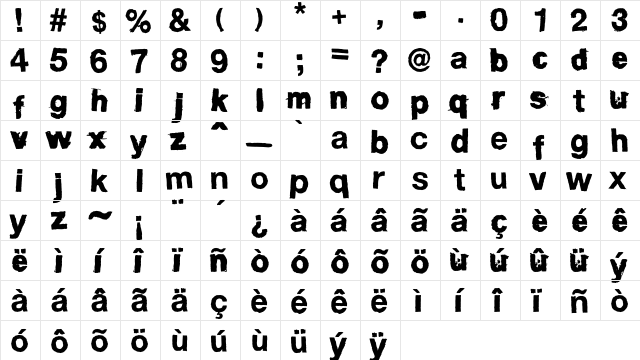
FD Helwoodica Regular
Design Context for FD Helwoodica Typeface
FD Helwoodica echoes the hand-painted signage and woodblock typography of the American frontier, with a warm, rugged personality.
A natural fit for craft spirits, ranch branding, rodeo events, and Americana-inspired design work.
Font Pairing: Combine FD Helwoodica with a simple slab or neutral sans — period-accurate companions reinforce the vintage feel without competing for attention.
Pro Tip: Use FD Helwoodica for short, impactful bursts of text — it shines in poster headlines and product names rather than extended copy.